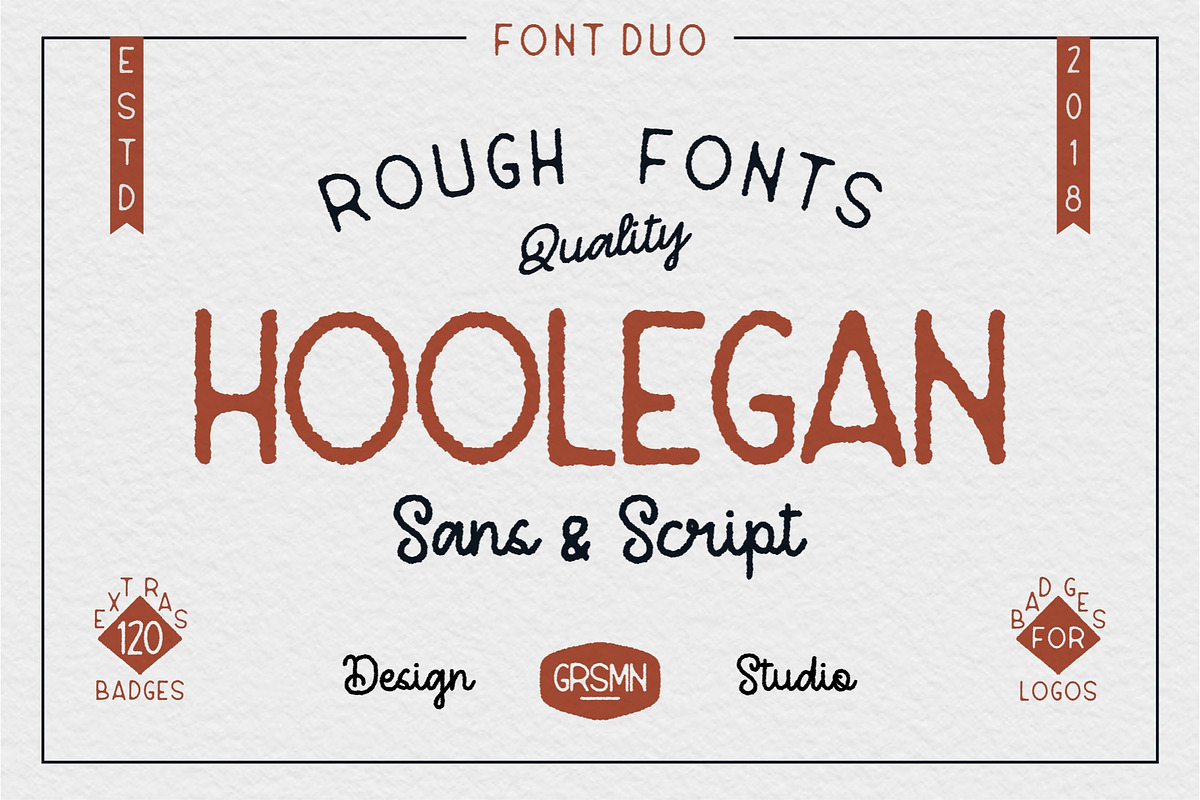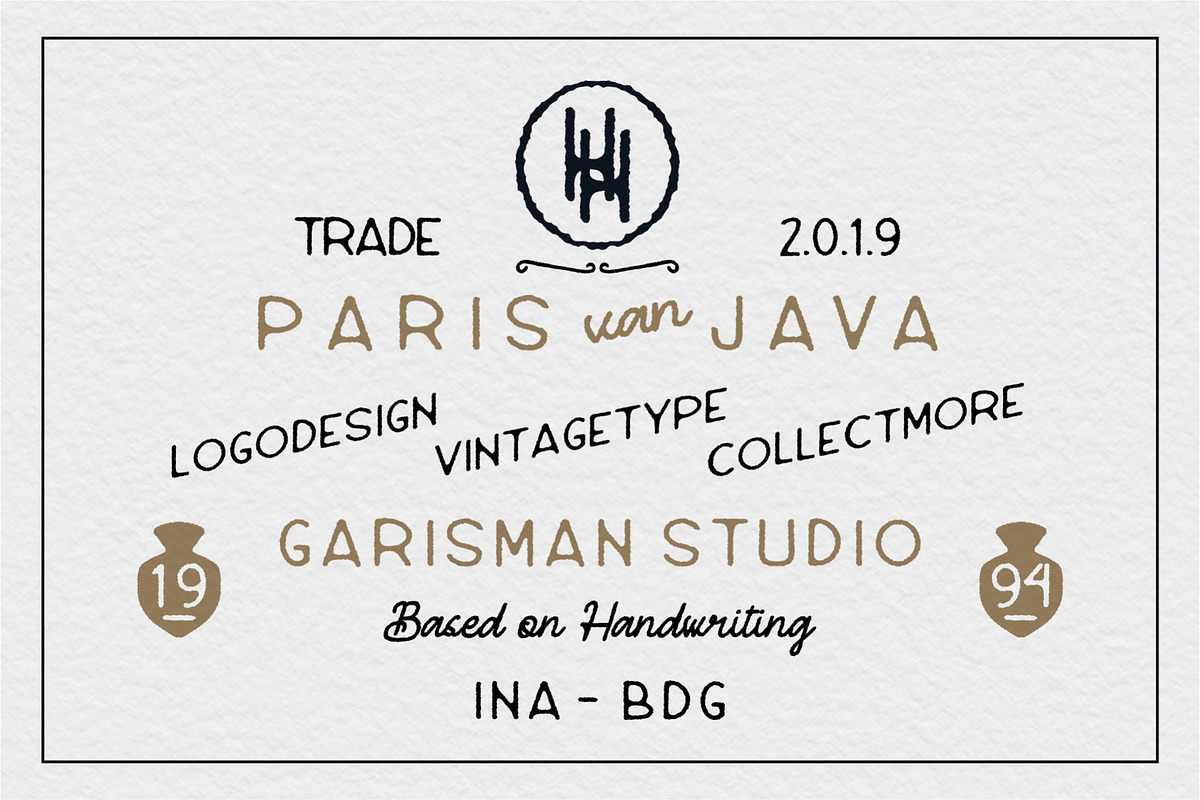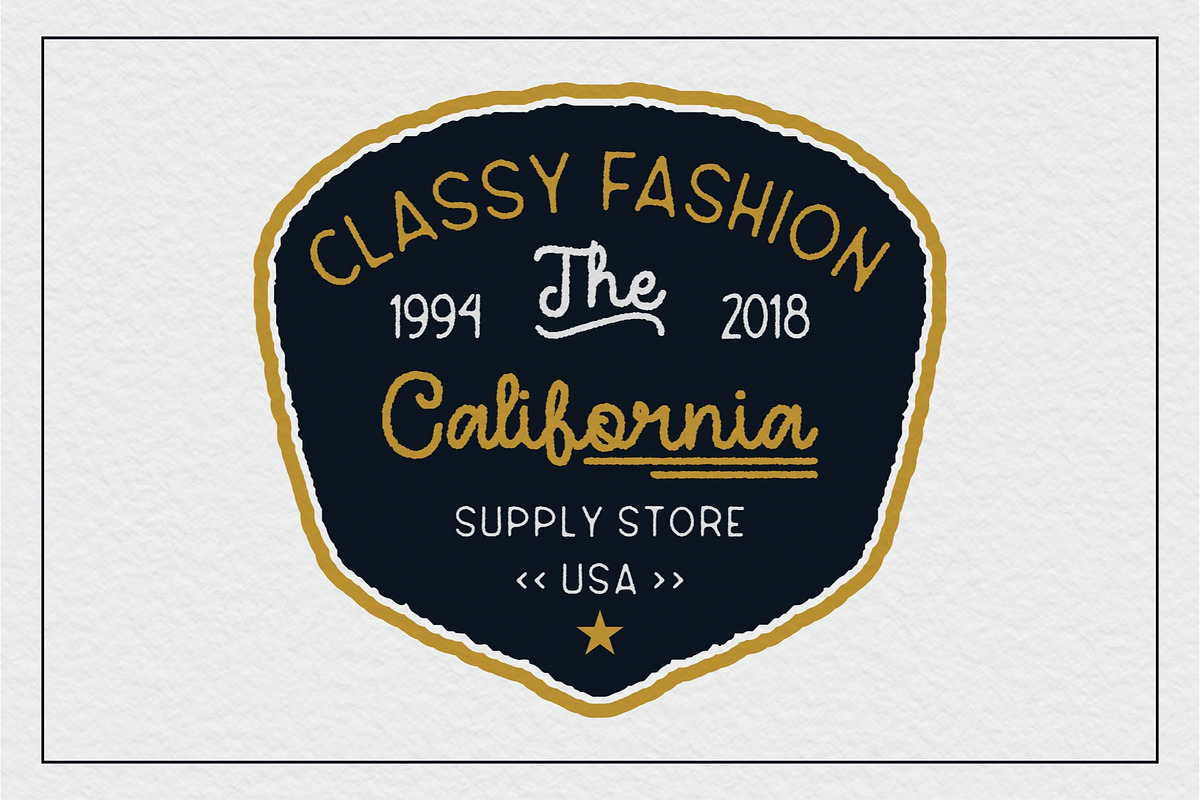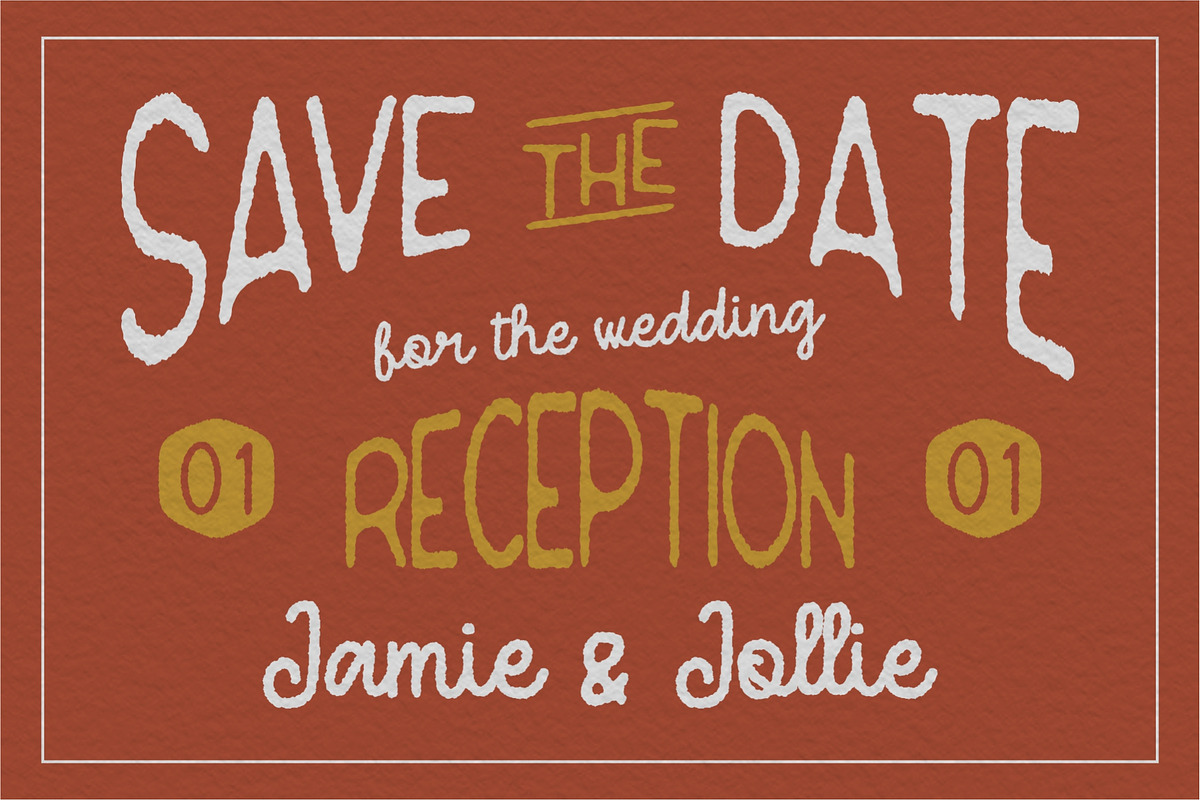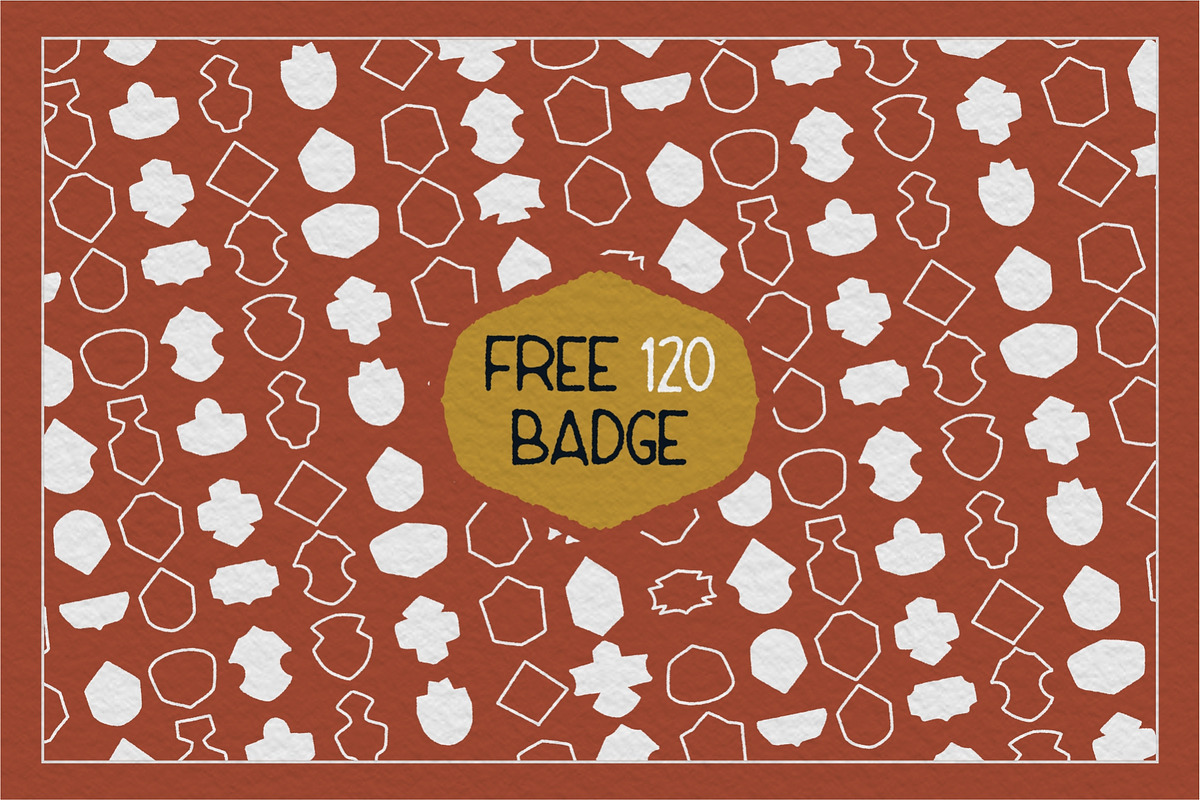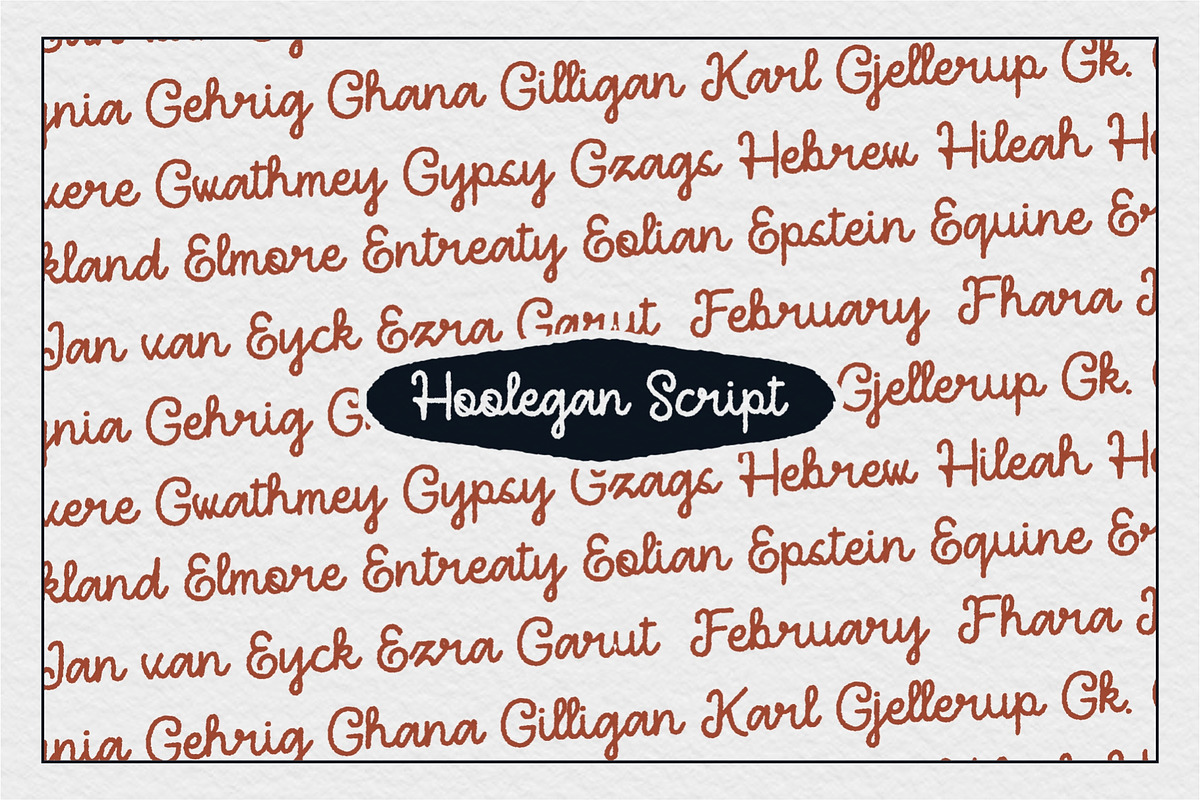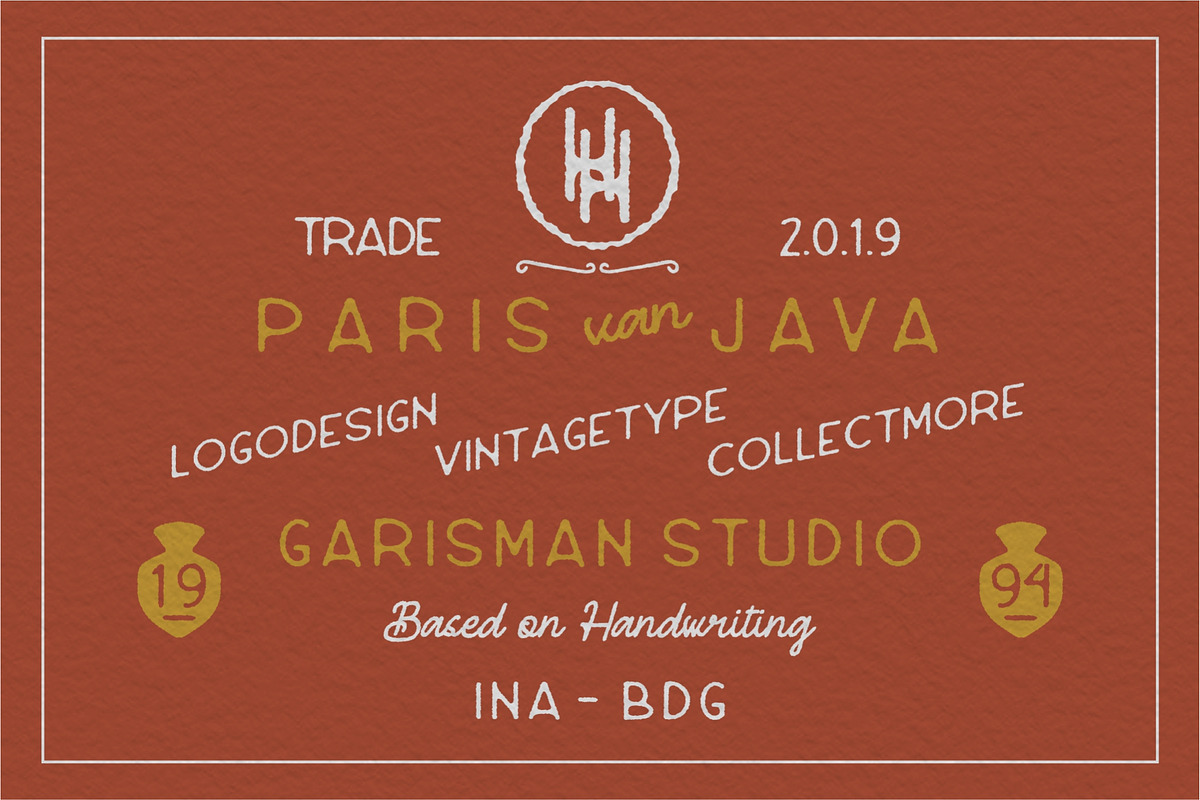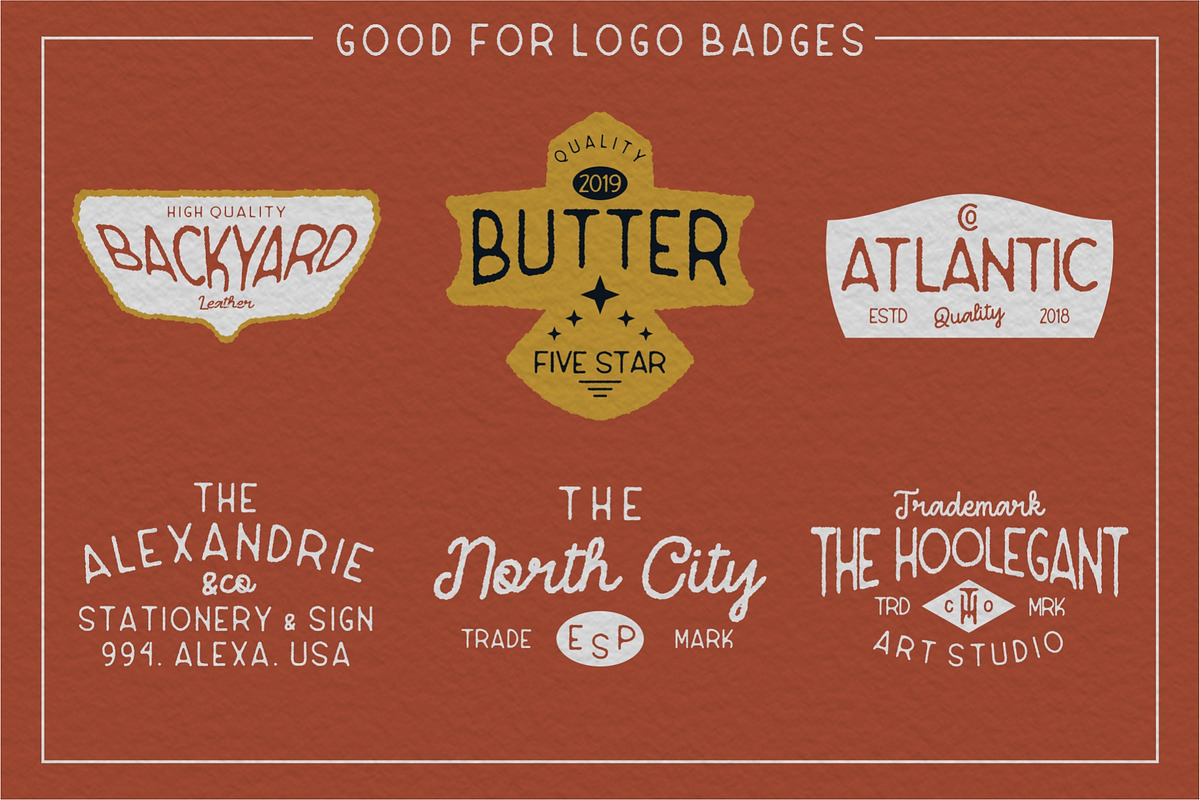
Hoolegan Font Duo
HOOLEGAN are born from the needs of designers who like and need fonts with handwriting style and rough patterns. With Sans Hoolegan and Hoolegan Script can be combined into a design that is perfect for creating logos, shirt design, branding, ads and more. You have to feel it!
Besides that, you get a free +100 badge template to make your design very different from the others!
Multilingual Language Support (more than 20 languages)
Hoolegan Font Duo by Garisman Std fits naturally into Branding, posters, packaging, typography.